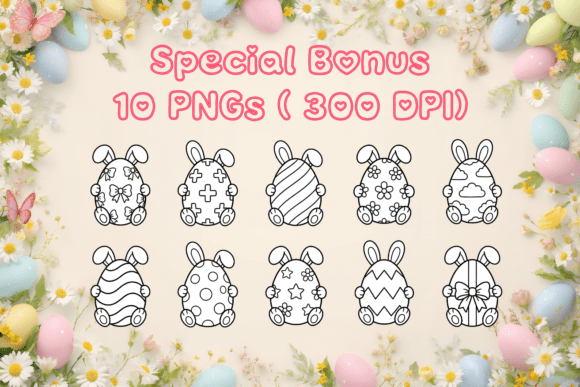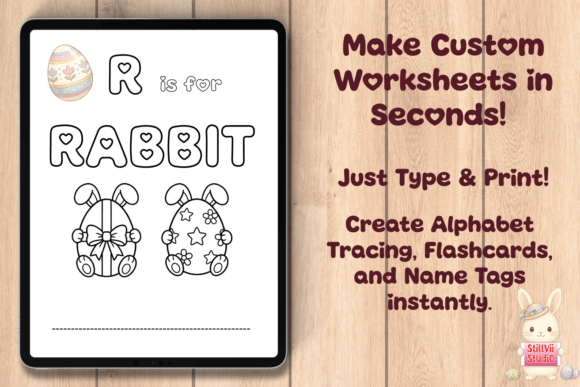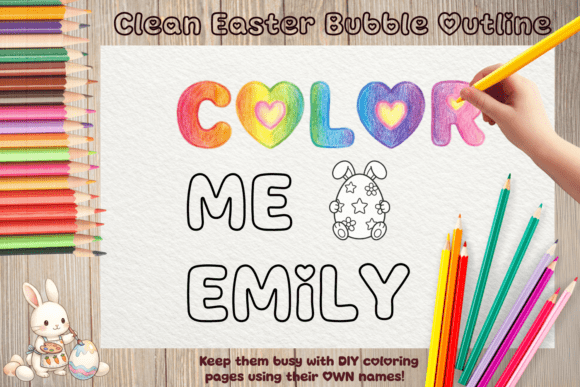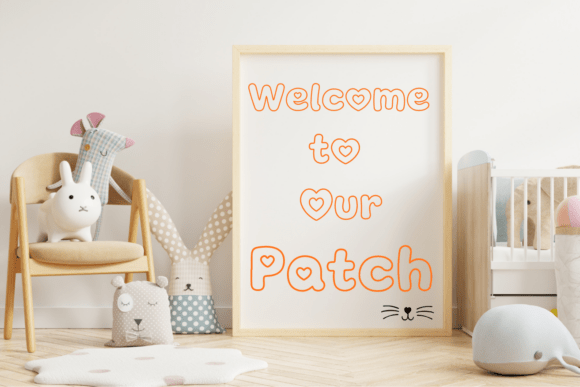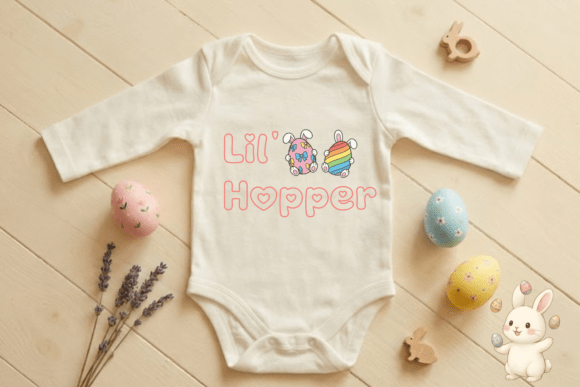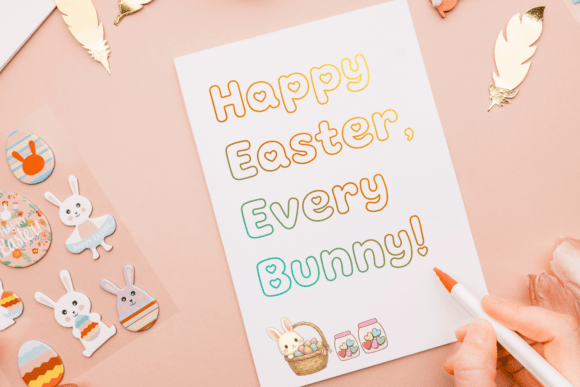
Hop into Creativity with Easter Bubble Outline Font 🖍️
I’ll never forget the Easter Sunday morning when I was tasked with creating a custom coloring page for my niece’s birthday party. With a room full of energetic kids and a deadline looming, I frantically searched for the perfect font to make it both fun and educational. That’s when I stumbled upon the Easter Bubble Outline font, and it was love at first sight! ✨
What Makes Easter Bubble Outline So Special?
Designed with teachers, parents, and crafters in mind, this delightful font is your go-to tool for creating engaging coloring pages, worksheets, and spring crafts in seconds. Its clean and playful design makes it perfect for keeping little ones busy and learning.
Features and Benefits
- 🖍️ Coloring Ready: Clean, thick outlines perfect for crayons, markers, and digital coloring
- ✨ Versatile: Ideal for educational printables, baby onesies, custom t-shirts, and spring greeting cards
Honest Review: The Good and the Great 🤔
- ✨ The Easter Bubble Outline font is incredibly easy to use, even for those who aren’t design experts
- ✅ The clean and thick outlines make it perfect for coloring pages and educational worksheets
- 🌸 The font comes with 10 bonus cliparts, providing a complete design kit for your projects
- ⚠️ The font might not work well with very small font sizes, as the outlines can become too thin
- 🤔 Some users might find the font a bit too playful for very formal or corporate designs
The Story Behind Easter Bubble Outline
The Easter Bubble Outline font was designed with the intention of bringing joy and creativity to teachers, parents, and crafters. The designer, inspired by the magic of Easter and the importance of creative play, crafted a font that would make it easy to create engaging and educational materials.